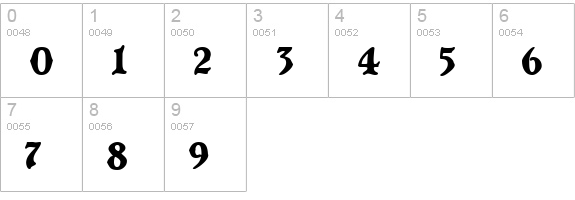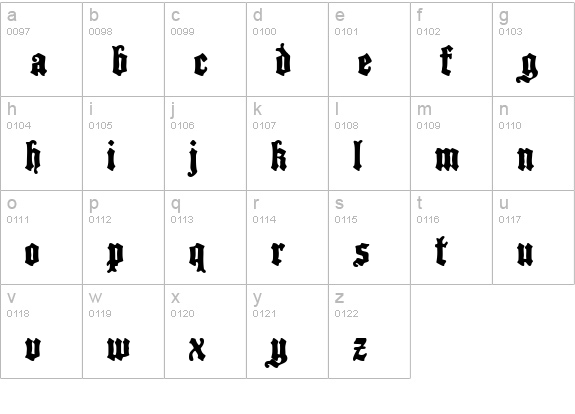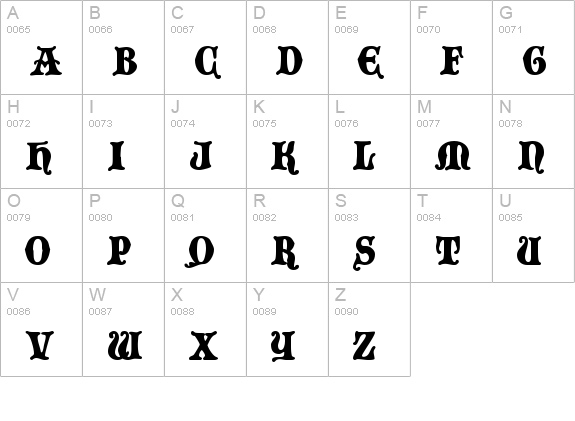
Black Castle MF Font Details
Black Castle MF is a maximum-weight, dramatic variant in the Black typeface family \xE2\x80\x94 well suited to maximum-impact headlines, posters, and packaging.
Black Castle MF is a striking and elegant font that combines the classic appeal of a medieval typeface with a modern twist. Its bold and stylized letterforms make it perfect for adding a touch of sophistication to any design project. Whether you're creating invitations, posters, or branding materials, Black Castle MF is sure to make a statement. The best part? Black Castle MF is completely free to download at FontsMarket.com. This means you can easily access this unique font and incorporate it into your creative endeavors without any cost. With its timeless charm and versatile design, Black Castle MF is a must-have addition to your font collection. Download it today and unleash your creativity with this exquisite typeface.